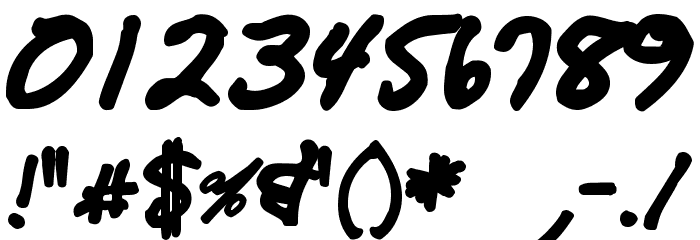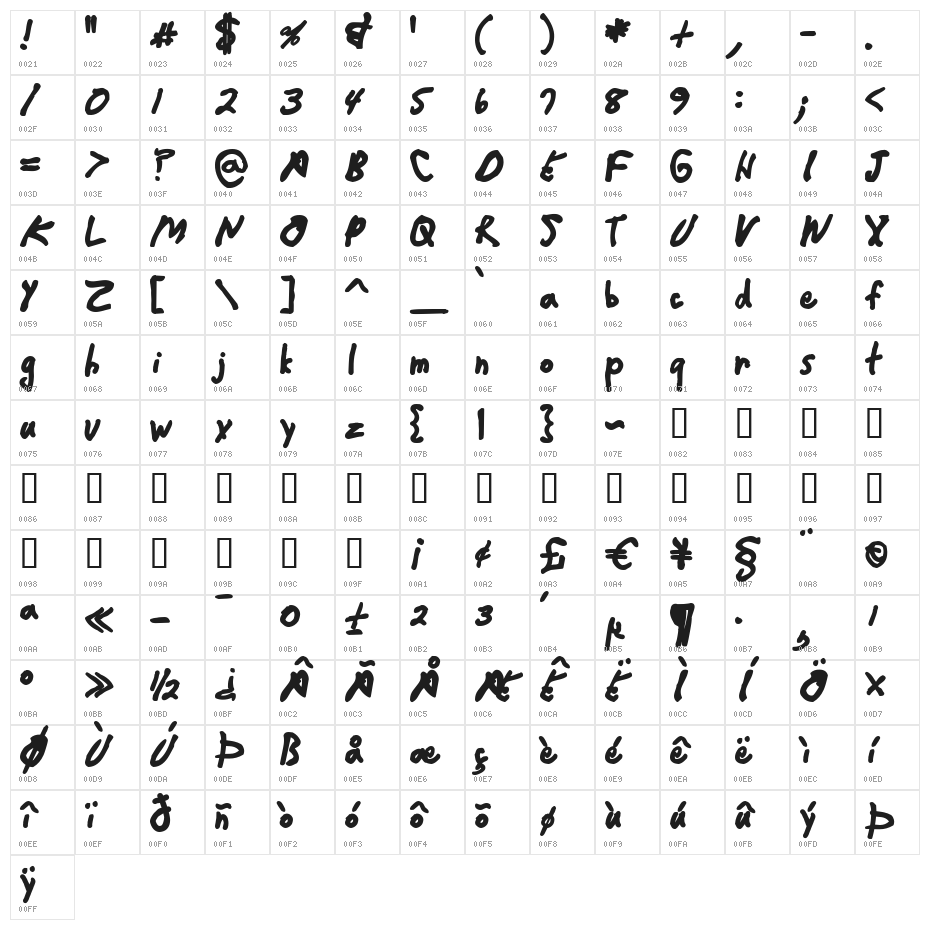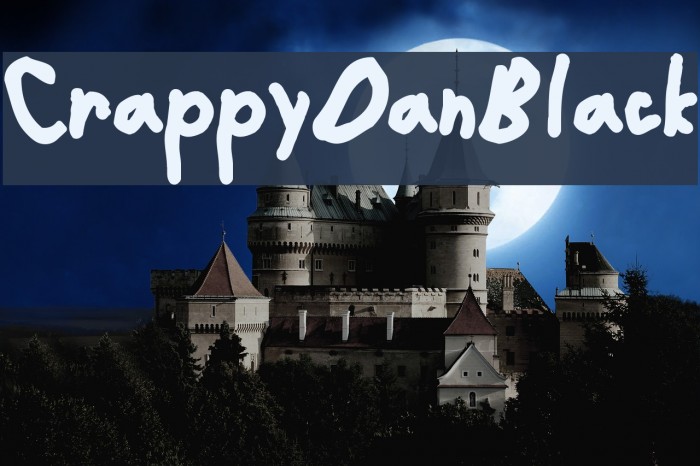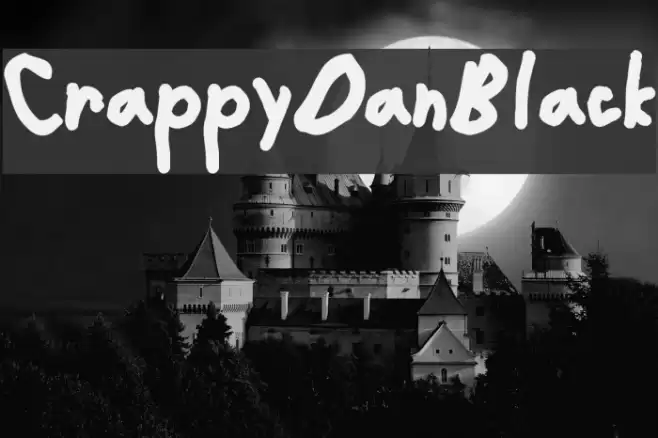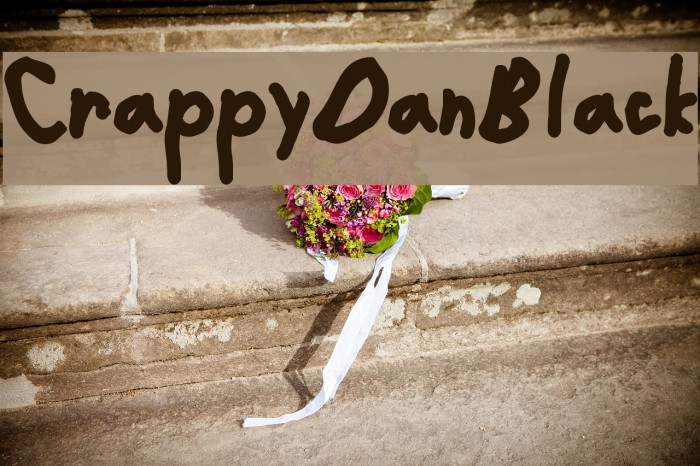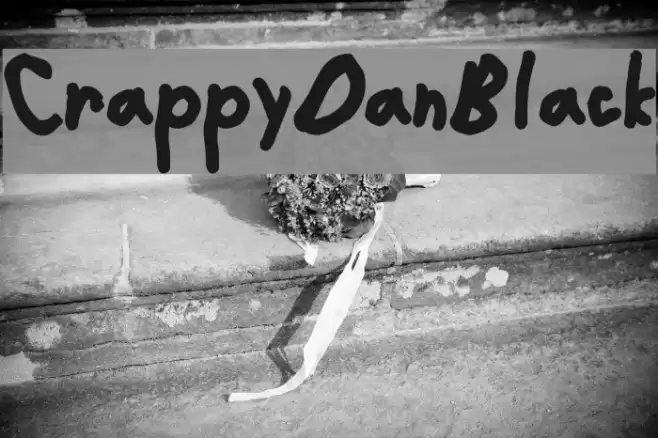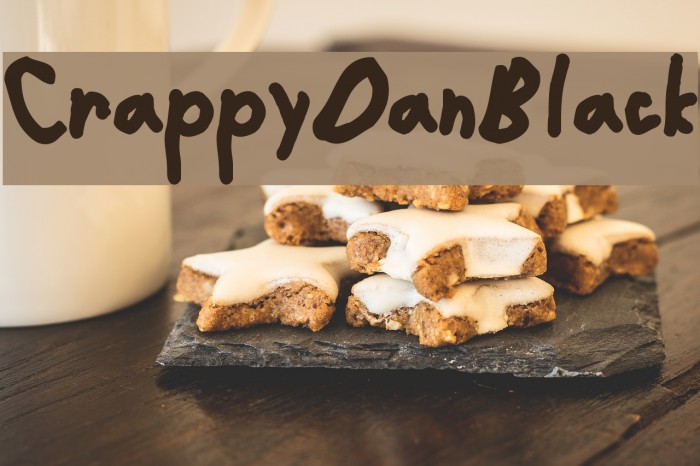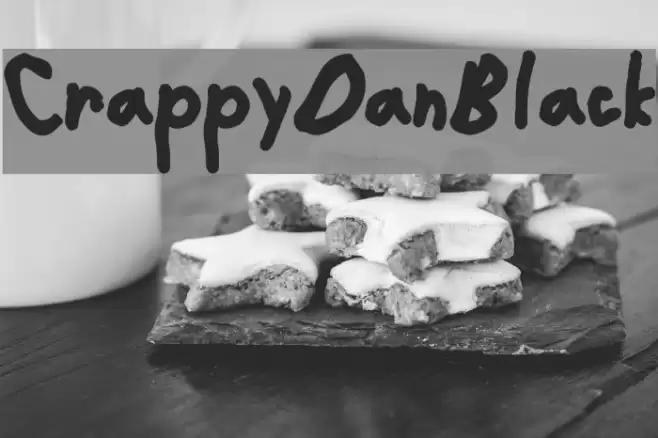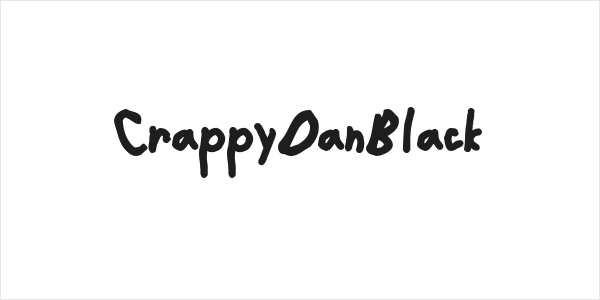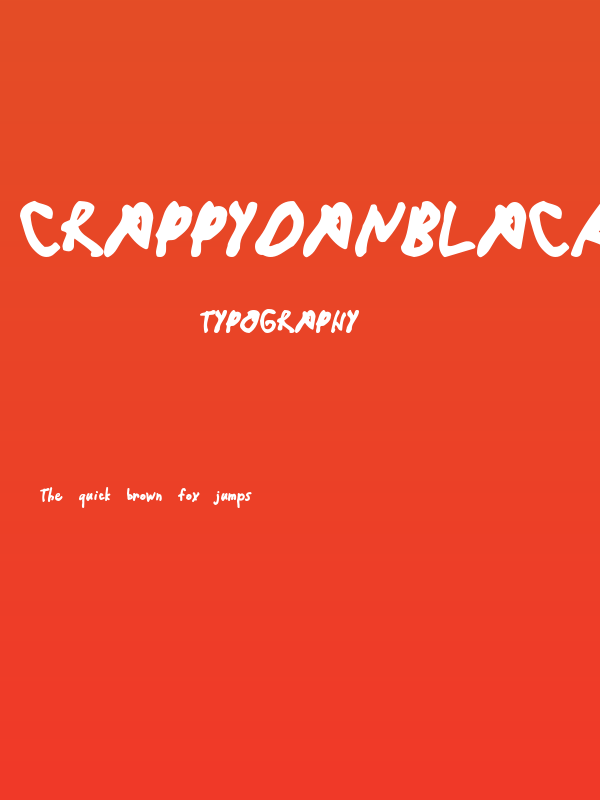
CrappyDanBlack Font
CrappyDanBlack Description
This font features a bold, handwritten style with a playful and energetic appearance. The letters are characterized by their irregular shapes and varying stroke thickness, giving them a dynamic and informal feel. The uppercase and lowercase letters maintain a consistent style, with rounded edges and a slightly slanted orientation. The numbers and special characters follow the same aesthetic, ensuring a cohesive look across all elements. This font's unique style makes it stand out, offering a sense of creativity and spontaneity.